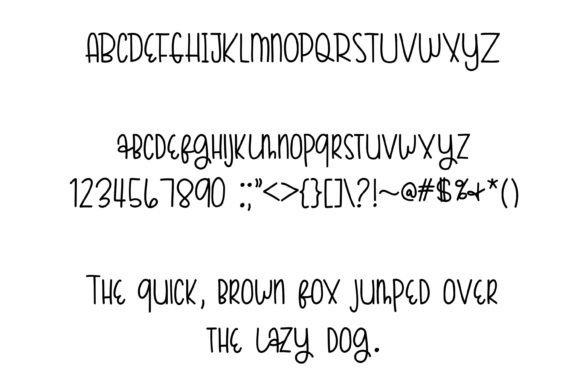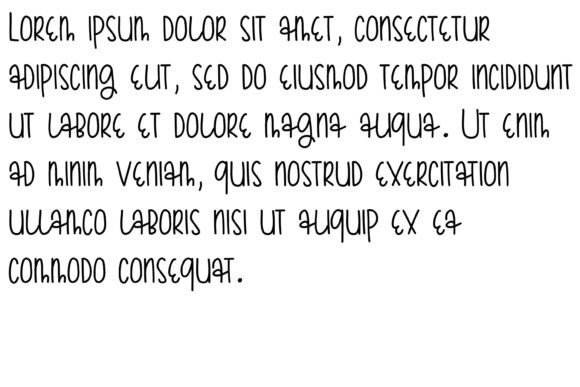
Grumdrops Font
About Grumdrops Font
Gumdrops is a fun, funky handwritten font. It’s a playful typeface with unique but readable letters and it will look great on a wide range of projects.